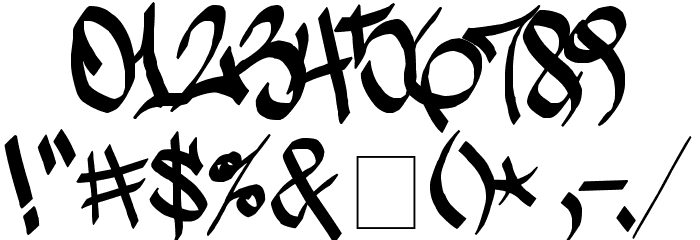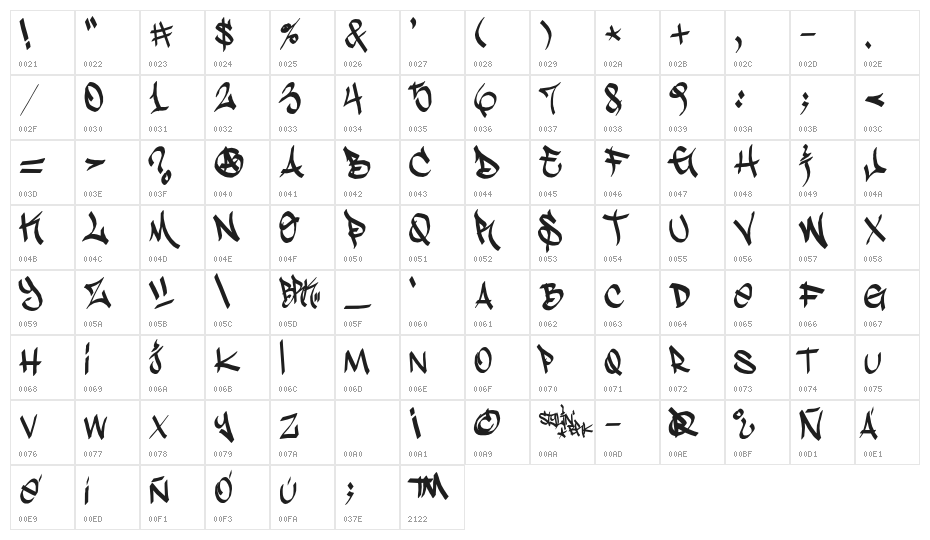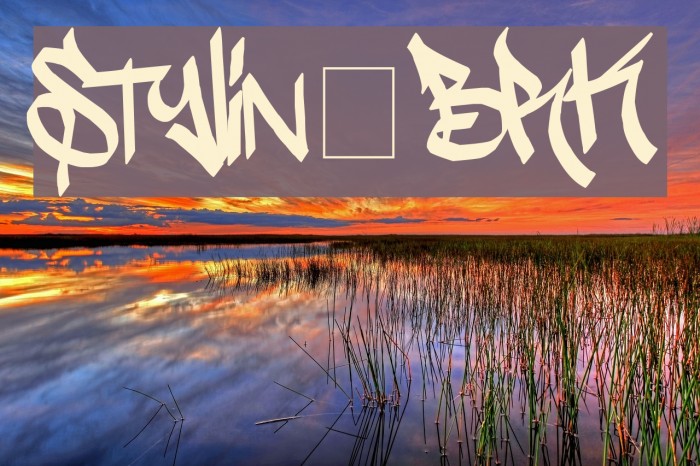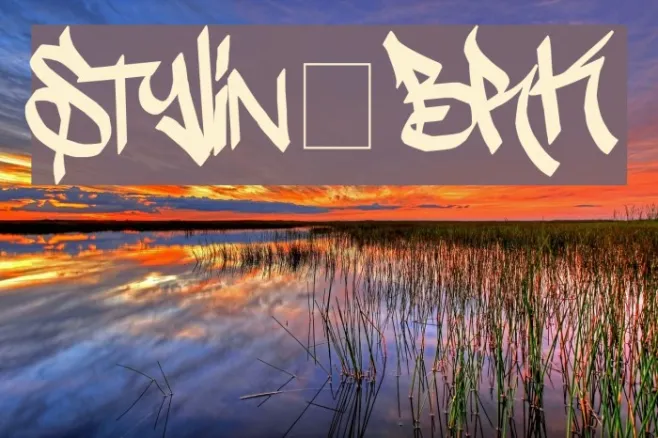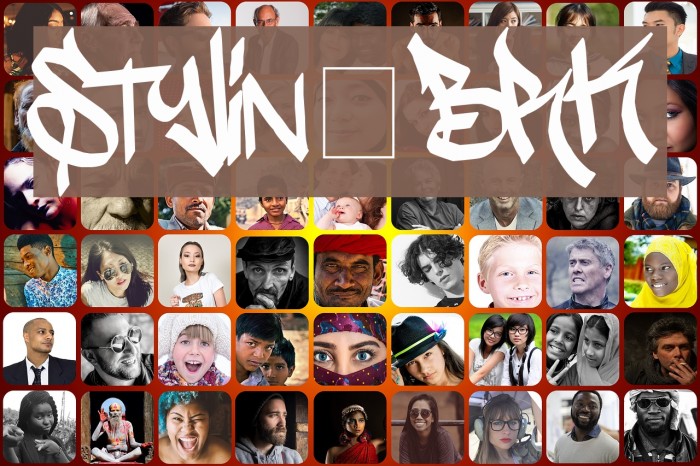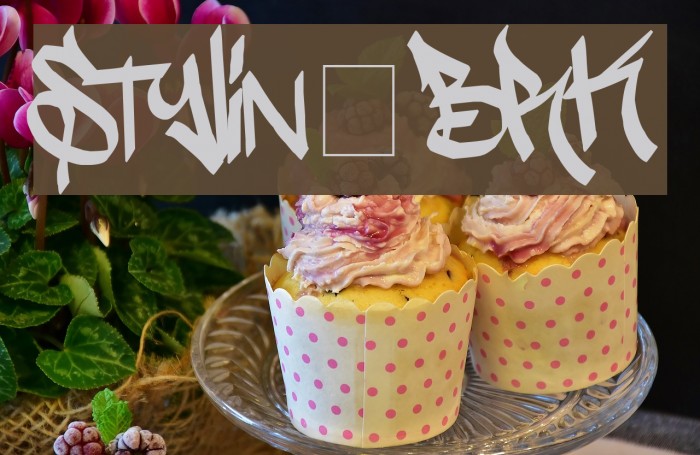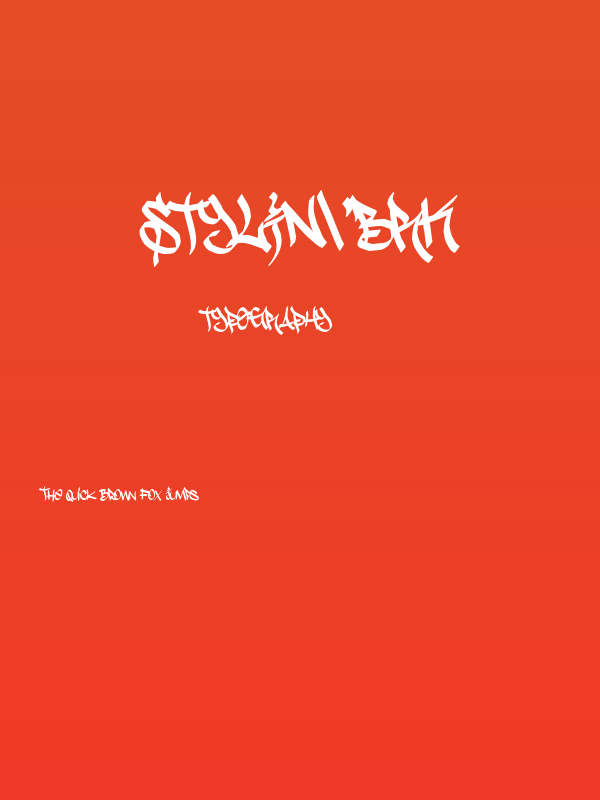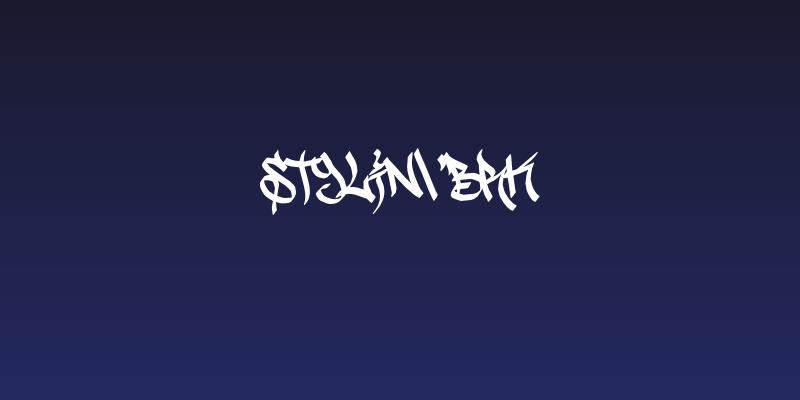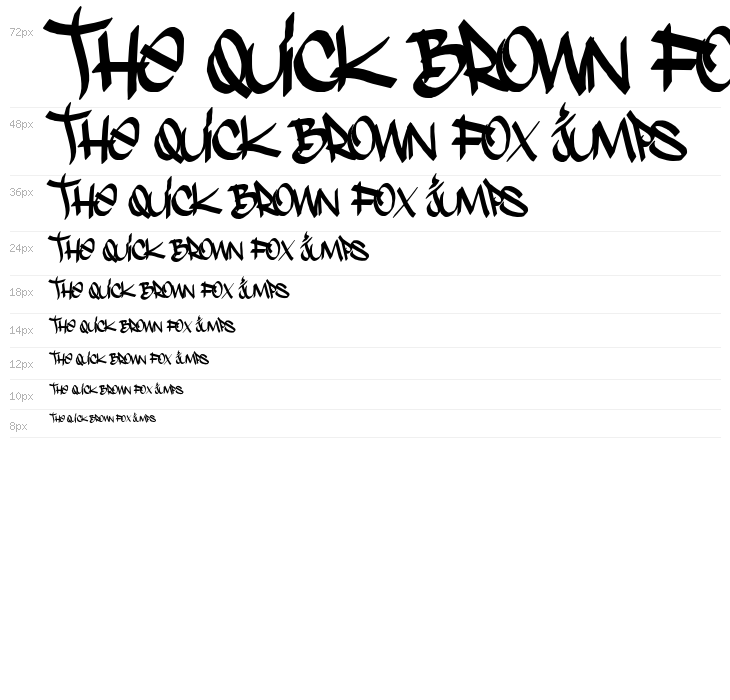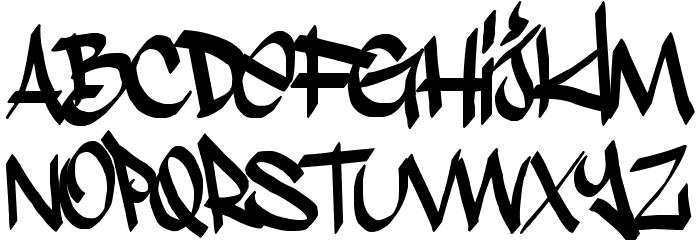
Stylin'BRK Font
Stylin'BRK Description
This font features a bold and dynamic graffiti-inspired style, characterized by sharp angles and fluid strokes that convey a sense of movement and energy. The uppercase and lowercase letters maintain a consistent aesthetic, with exaggerated curves and pointed edges that give it a rebellious and urban feel. The numbers and special characters are equally expressive, ensuring a cohesive look across all text elements. The font's design is both striking and legible, making it suitable for impactful visual statements.
| Overall Style | Urban, Rebellious, Dynamic |
| Proposed Projects | Ideal for street art projects, urban-themed posters, music album covers, and edgy branding materials. |